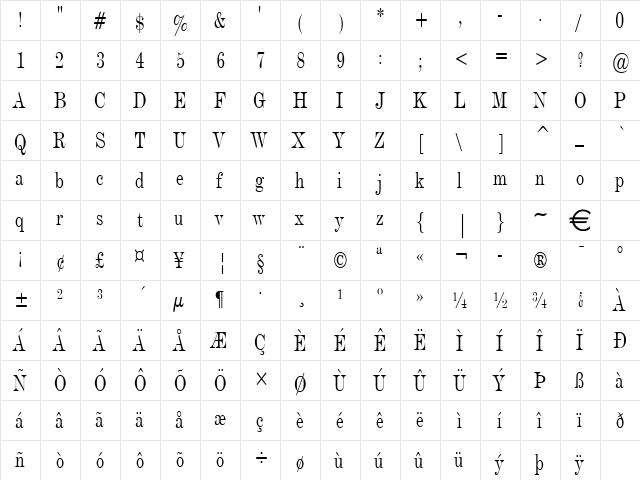
DevineCondensed Normal
Design Context for DevineCondensed Typeface
DevineCondensed is a composed and adaptable typeface that performs quietly and consistently across a wide range of design contexts. The condensed width makes it efficient for tight spaces without sacrificing legibility.